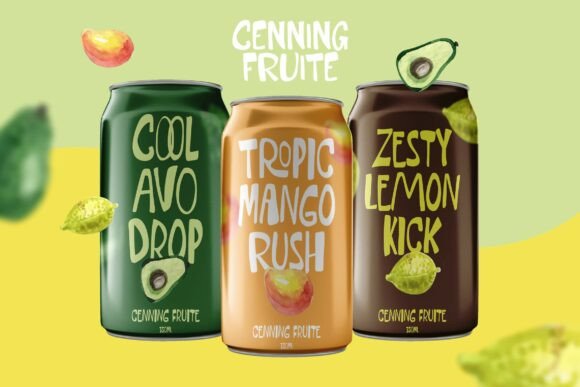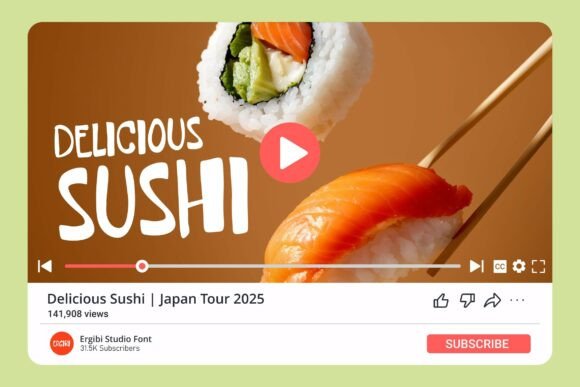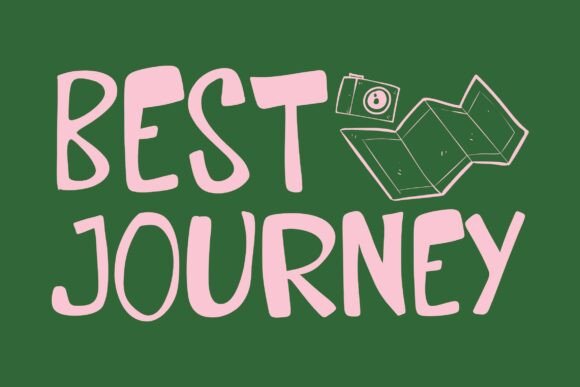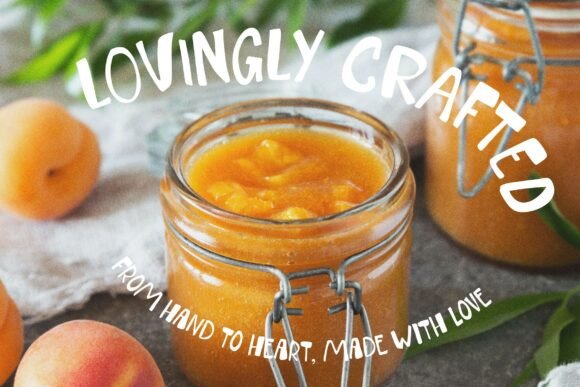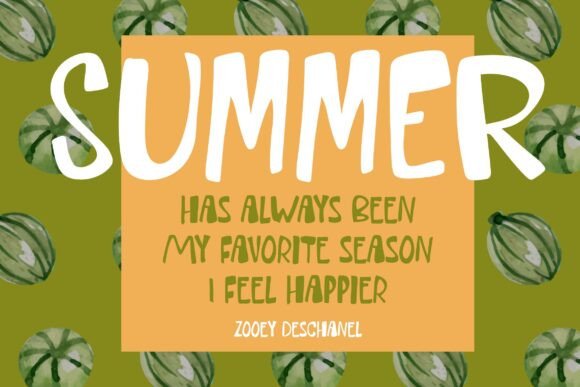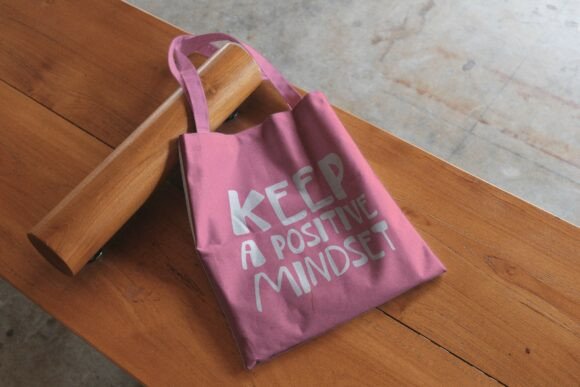
Introducing Freak Droop Font: Unleash Your Wild Side in Design
Are you tired of using the same old fonts in your design projects? Do you want to add a touch of personality and chaos to your creations? Look no further than Freak Droop Font, a quirky, handwritten, and intentionally “ugly” font that’s perfect for bold and expressive designs.
The Story Behind Freak Droop Font
Freak Droop Font is a unique and eye-catching font that’s designed to bring a touch of raw, unbridled energy to your design projects. Each character is crafted with irregular, raw strokes that give the font a delightfully chaotic feel. This font is not for the faint of heart – it’s for designers and crafters who want to push the boundaries of conventional design and create something truly unique.
What Makes Freak Droop Font So Special?
So, what sets Freak Droop Font apart from other fonts out there? Here are just a few things that make it special:
- Quirky and Handwritten: Freak Droop Font is a handwritten font with a quirky, irregular feel that’s perfect for adding a touch of personality to your designs.
- Uppercase Only: This font features only uppercase letters, which gives it a bold and attention-grabbing feel.
- Raw and Irregular Strokes: Each character is designed with raw, irregular strokes that give the font a delightfully chaotic feel.
- Perfect for Bold Designs: Freak Droop Font is perfect for designers who want to create bold, expressive designs that stand out from the crowd.
Use Freak Droop Font in Your Design Projects
Freak Droop Font is perfect for a wide range of design projects, including:
- Logotypes: Use Freak Droop Font to create a unique and eye-catching logotype that sets your brand apart.
- Watermarks: Add a touch of personality to your watermarks with Freak Droop Font.
- Posters: Create bold and eye-catching posters with Freak Droop Font.
- Branding Materials: Use Freak Droop Font in your branding materials, such as business cards, brochures, and more.
- Promotions: Add a touch of chaos to your promotional materials with Freak Droop Font.
- Product Packaging: Use Freak Droop Font on product packaging to make your products stand out on store shelves.
Get Inspired with Freak Droop Font
Ready to unleash your wild side in design? Dive into the previews above for inspiration and see how Freak Droop Font can be used in a variety of design projects. With its quirky, handwritten feel and intentionally “ugly” charm, Freak Droop Font is sure to add a touch of personality to any design.
Tips for Using Freak Droop Font
Here are a few tips for using Freak Droop Font in your design projects:
- Experiment with Different Sizes: Freak Droop Font looks great in a variety of sizes, from small and subtle to large and bold.
- Pair with Other Fonts: Try pairing Freak Droop Font with other fonts to create a unique and eye-catching design.
- Use it Sparingly: Because Freak Droop Font is so bold and attention-grabbing, it’s best to use it sparingly in your designs.
| Font Name | Freak Droop Font |
| Author | ergibi studio |